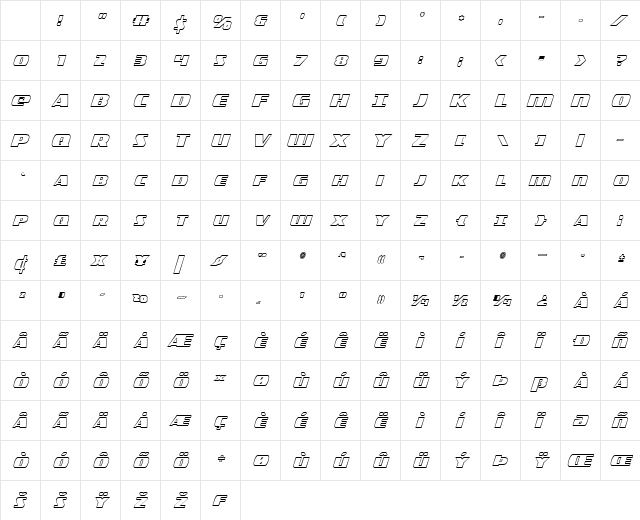
Complete Americorps Outline Condensed glyph index. Displaying only characters natively supported by Americorps Outline Condensed font.
Americorps Outline Condensed is built around its visual character rather than neutral utility - its distinctive forms are designed to make an impression at display sizes.
Font Pairing: Pair with a clean neutral sans-serif for body copy to let Americorps Outline Condensed's character lead without overwhelming the composition.
Pro Tip: Use Americorps Outline Condensed exclusively at display sizes - it was designed to be seen, not read at length. Let a neutral companion handle body copy.